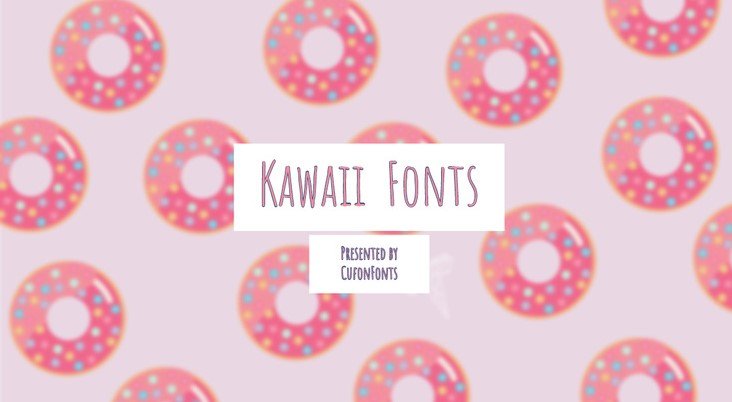
This is not a single typeface but a whole family of ancient typefaces. This typeface has such amazing readability and is elegant. This extraordinary font
If you are searching for a great and elegant handwritten typeface then here is the Kawaii font which is the great creation of NeoMeow. You can use this typeface in making a great layout for books and dictionaries.
This is not a single typeface but a whole family of ancient typefaces. This typeface has such amazing readability and is elegant. This extraordinary font incorporates the ondise font.
This font is an elegant handwritten typeface that was designed by NeoMeow.